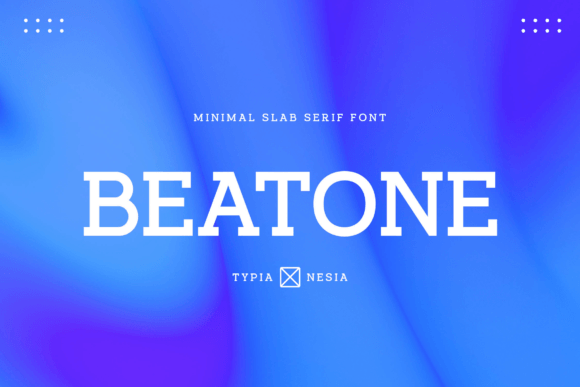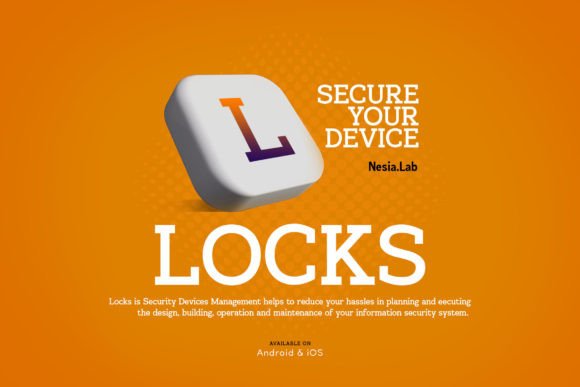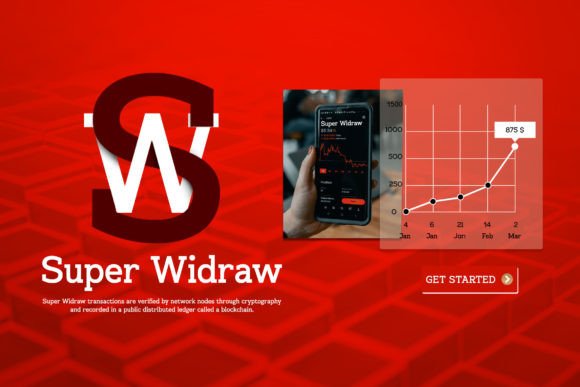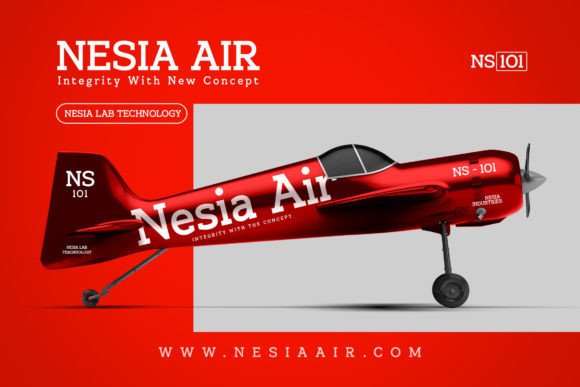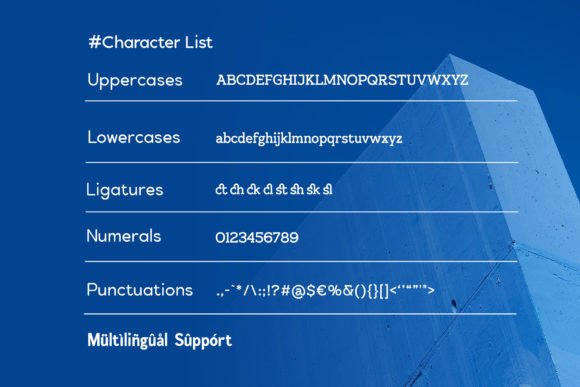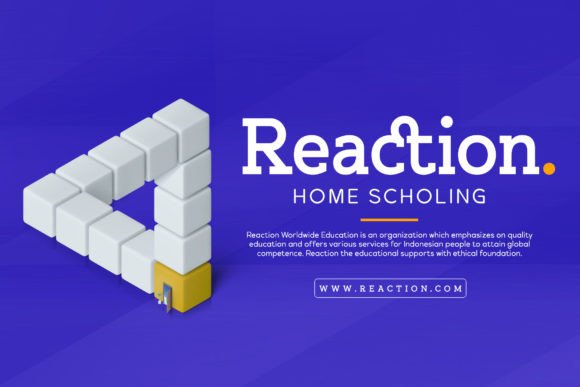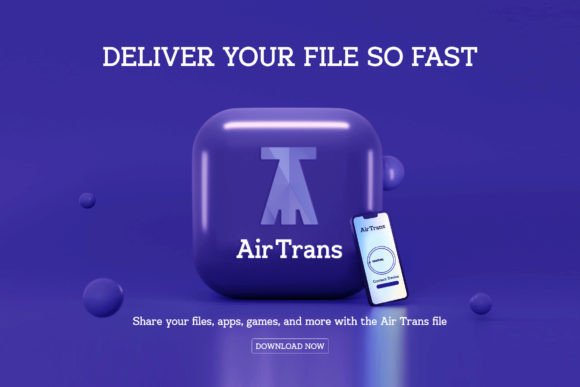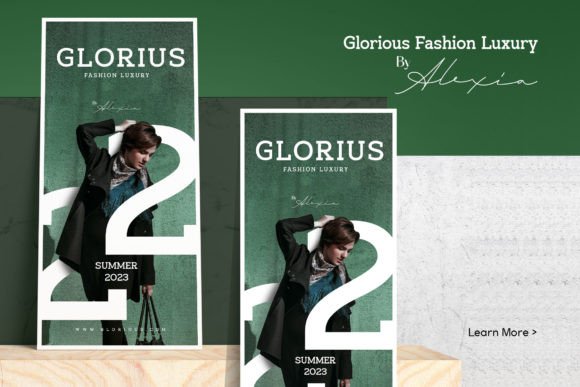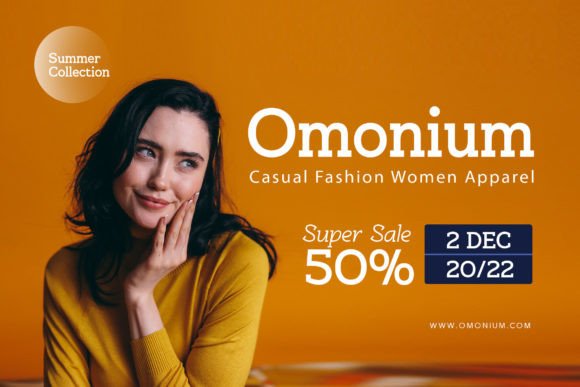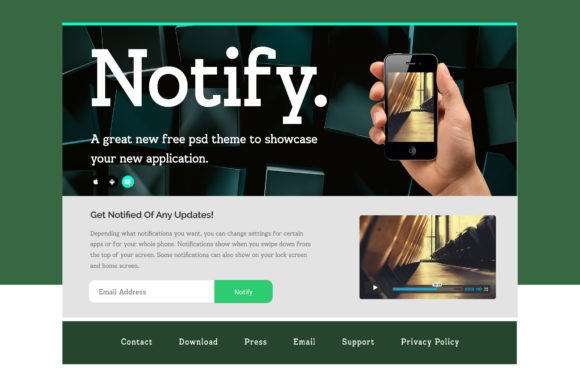
Beatone Font
About Beatone Font
Beatone is a modern clean minimalist perfect for your upcoming projects. Such as logo branding, editorial design, stationery design, esports design, game industry, sports racing, techno/gadget brand, digital music poster, apps startup design, modern advertising design, art quote, home decor, book/cover title, special events, and more.